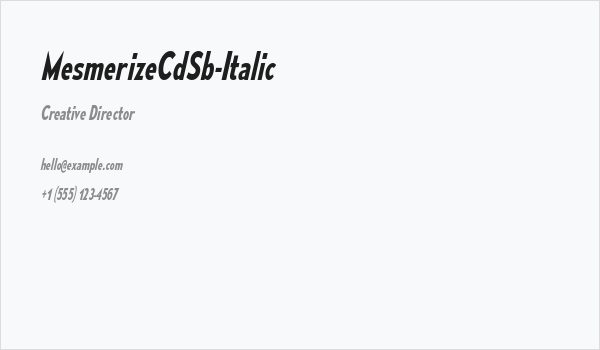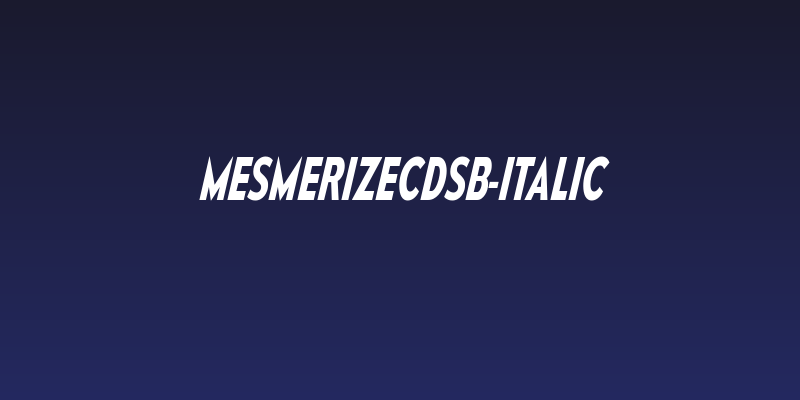
MesmerizeCdSb-Italic Font
MesmerizeCdSb-Italic Description
This font features a bold and italicized style with a strong, dynamic presence. The characters are slightly condensed, giving it a compact and efficient look. The strokes are thick and consistent, providing a high contrast that enhances readability and impact. The italic slant adds a sense of motion and urgency, making it suitable for attention-grabbing headlines and titles. The uppercase and lowercase letters are well-proportioned, maintaining clarity and legibility. The numbers and special characters are designed to match the bold and italicized theme, ensuring a cohesive appearance across all elements.
| Proposed Projects | Ideal for headlines, advertising, posters, and branding materials where a strong, impactful presence is needed. |